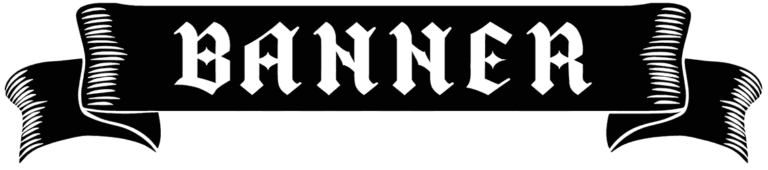
Bradthen Font
Wherever you wish to deliver your words in a harsh manner, go with Bradthen. As a death metal font, it knows just what your death metal projects need. You can totally bring out the dark side in your designs when you lead with a satanic font like this.
The readability is not very promising with all those sharp details and the dripping style, and there’s no numeral or punctuation mark to use either, but that doesn’t make Bradthen any less valuable.